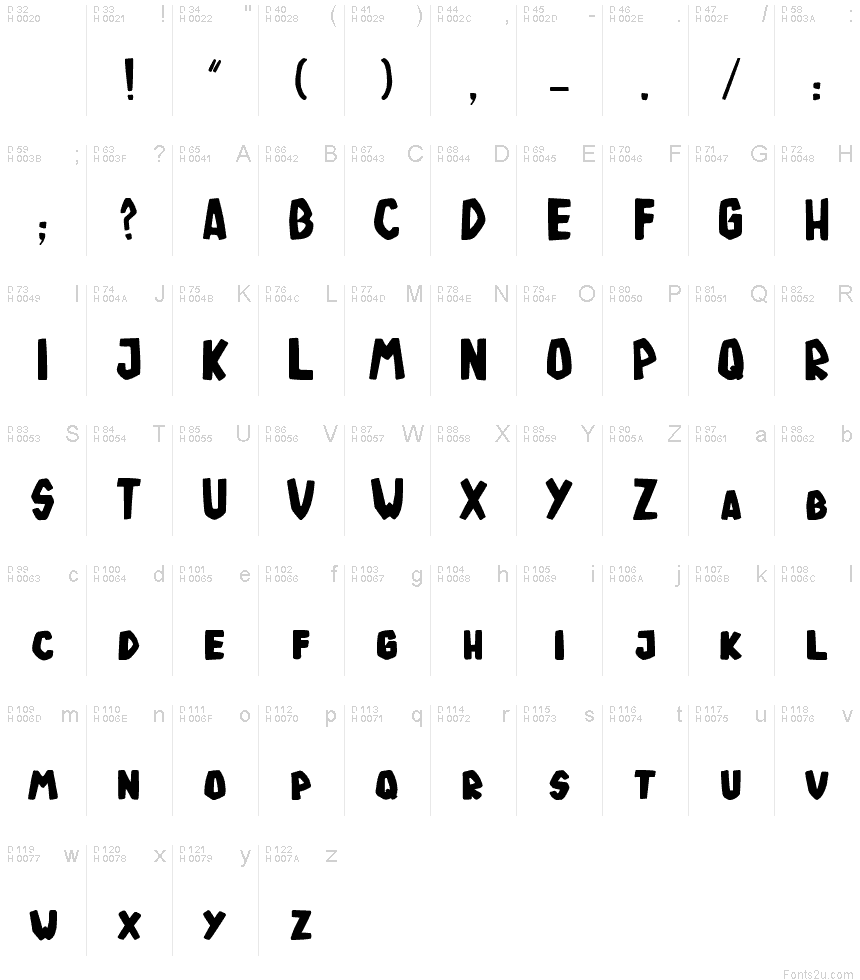
Tode Ja Oigus by Andres Aarik is a free graffiti font with heavy, uneven lettering and a blunt hand-cut profile. Its tall, crowded forms shift in width and stroke angle, with sharp notches and pinched joins breaking up the solid shapes.
Youth culture and independent music scenes are a natural match for its rough poster-painted character, making it useful for gig posters, streetwear branding, and skate merchandise. On event graphics, the lettering can become part of the artwork itself.